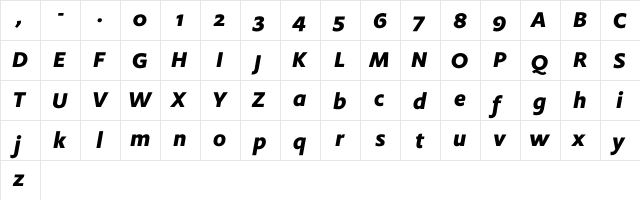
Flex ExtraBold Italic
| Foundry | Paul van der Laan |
| Designer | Paul van der Laan |
Design Context for Flex Typeface
Flex offers clean, dependable letterforms without strong stylistic allegiance, making it a practical choice for designers who need flexibility. The slanted form adds forward momentum and visual energy. The heavy weight commands attention and anchors typographic hierarchies.
Pro Tip: Try Flex for annotation and caption copy alongside an upright companion — the contrast in angle creates a dynamic but ordered typographic system.